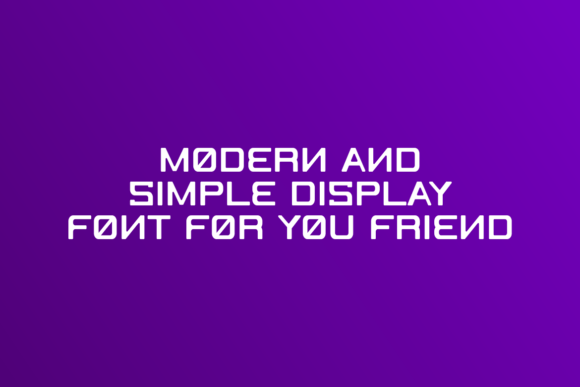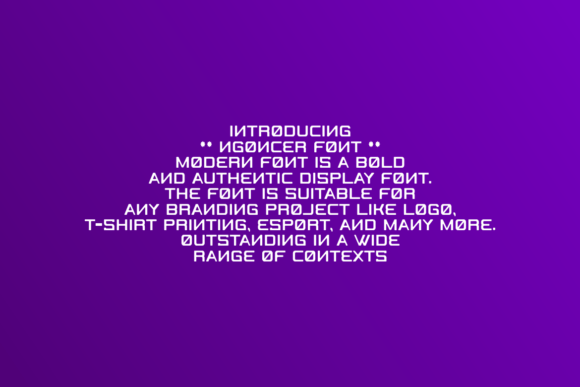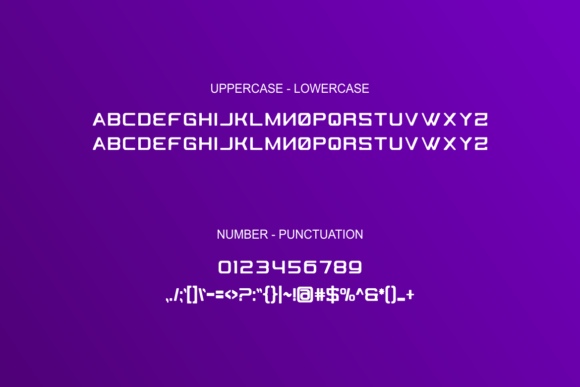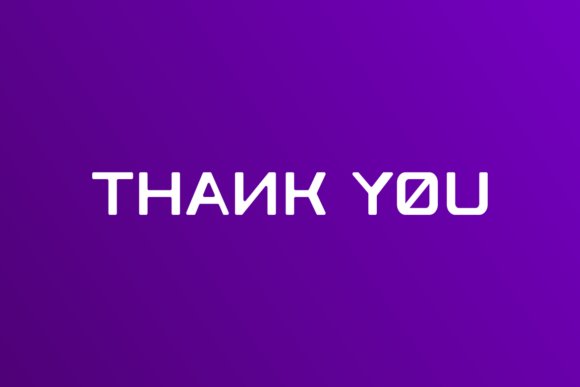
Introduction to Ngoncer Font
Ngoncer is a modern techno display font with a sleek and futuristic look.
Its bold, sharp lines and unique design make it perfect for high-tech and sci-fi themes Use Ngoncer to add a cutting-edge, modern feel to your projects.
Key Features of Ngoncer Font